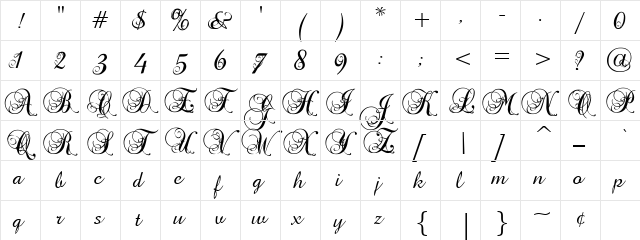
Precious Regular
| Designer | BoltCutterDesign |
Design Context for Precious Typeface
Precious is a composed and adaptable typeface that performs quietly and consistently across a wide range of design contexts.